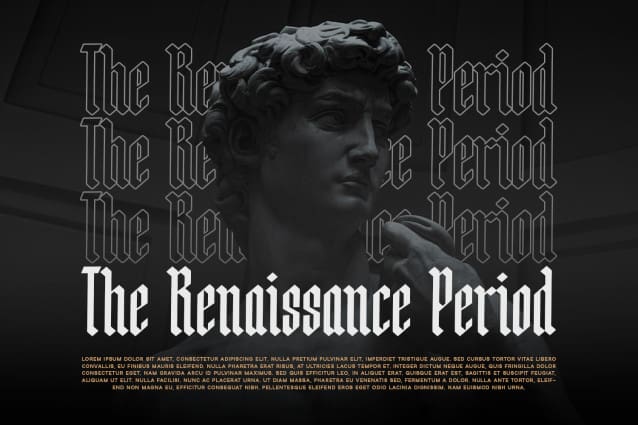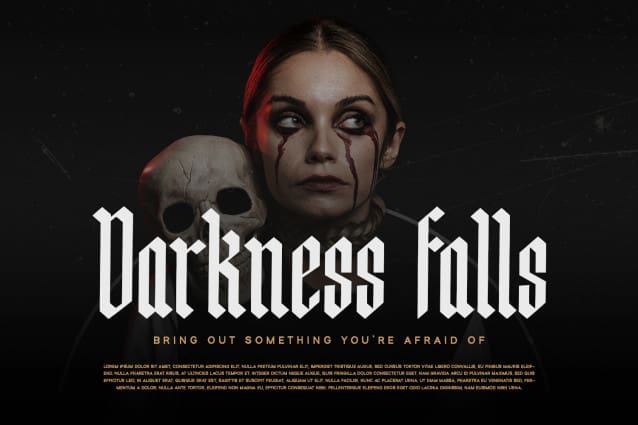
Malevolent Display Font
Malevolent Display Font is a display font with unique and modern feels. It will be perfectly used for Branding, Logo Design, Lettering, Logotype, Clothing, Poster, magazine, packaging, posters, shopping bags, t-shirts, book covers, photography, special events and other design project.